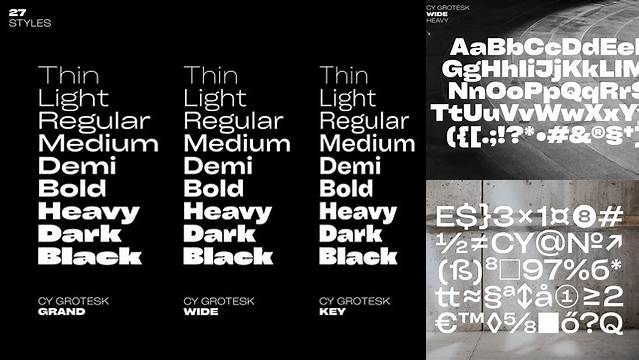
1. What is Cy Grotesk Font?
Okay, guys, let's dive into the world of Cy Grotesk font. What exactly is it? Well, Cy Grotesk is a modern sans-serif typeface known for its clean lines, geometric shapes, and overall readability. It's a versatile font family, making it suitable for a wide range of design projects. Think about everything from website headers and body text to print materials like brochures and posters. The beauty of Cy Grotesk font lies in its simplicity and elegance, offering a contemporary look that doesn't feel overly trendy or dated. It’s the kind of font that communicates professionalism and clarity, which is why it's so popular among designers. The distinct character shapes, particularly in the lowercase letters, contribute to its unique identity. You'll notice a slight squareness to some of the forms, giving it a sturdy and dependable feel. This makes Cy Grotesk font not just aesthetically pleasing but also highly functional for various applications. It excels in both digital and print formats, ensuring that your message is conveyed effectively regardless of the medium. When you're looking for a font that's both modern and timeless, Cy Grotesk is definitely a strong contender to consider. This font is a workhorse, capable of handling everything from long-form text to eye-catching headlines, and its adaptability makes it a valuable asset in any designer's toolkit.
2. Key Features of Cy Grotesk
So, what makes Cy Grotesk font stand out from the crowd? Let's break down some of its key features. First off, its geometric construction is a major characteristic. The letterforms are based on simple shapes like circles, squares, and straight lines, giving it a structured and modern appearance. This geometric foundation ensures that the font is highly legible and visually balanced. Another standout feature is its cleanliness. Cy Grotesk avoids unnecessary embellishments and flourishes, focusing on delivering a crisp and clear typographic experience. This minimalist approach makes it incredibly versatile, fitting seamlessly into various design styles and contexts. The font's readability is also a huge plus. The letter spacing and proportions have been carefully considered to ensure that text remains easy to read, even at smaller sizes. This makes it an excellent choice for body text as well as headlines. Moreover, Cy Grotesk font often comes in a variety of weights and styles, ranging from light to bold, and sometimes includes italics. This allows designers to create a visual hierarchy and add emphasis within their designs. The different weights provide the flexibility needed to tackle various design challenges, from creating subtle variations in text to making bold statements. In essence, Cy Grotesk's key features – its geometric construction, cleanliness, readability, and variety of weights – contribute to its versatility and popularity. It's a font that's both functional and aesthetically pleasing, making it a reliable choice for any design project. When you need a font that communicates clarity and modernity, Cy Grotesk is a fantastic option.
7. Using Cy Grotesk for Website Design
Let’s talk about using Cy Grotesk font for website design. This is where things get really exciting because typography can make or break a website’s visual appeal and user experience. Cy Grotesk, with its clean and modern aesthetic, is a fantastic choice for web design, but you need to use it strategically to get the best results. First off, consider legibility. Websites need to be easy to read, so choose font sizes and weights that ensure clarity. Cy Grotesk font generally works well for both headings and body text, but it’s crucial to find the right balance. For headings, you might want to use a bolder weight to create visual hierarchy and draw attention to important sections. For body text, a regular or light weight will likely be more comfortable for extended reading. Consistency is another key factor in web design. Stick to a limited number of fonts (usually two or three) to create a cohesive and professional look. You might use Cy Grotesk for headings and another complementary font for body text, or use different weights and styles of Cy Grotesk to create visual interest. Performance matters, too. Using too many font weights or styles can slow down your website's loading speed, which can frustrate users. Optimize your font files and consider using web font formats like WOFF and WOFF2 to ensure fast loading times. Responsive design is crucial in today's mobile-first world. Make sure your font choices look good on all devices, from desktops to smartphones. Test your website on different screen sizes to ensure that the text remains legible and the design looks balanced. Accessibility is also a critical consideration. Choose font colors and sizes that provide sufficient contrast with the background, making your website accessible to users with visual impairments. When using Cy Grotesk font on your website, think about the overall tone and message you want to convey. Its clean and modern style can communicate professionalism, clarity, and innovation, making it a great choice for a wide range of websites, from corporate sites to personal portfolios. So, go ahead and experiment, but always keep legibility, consistency, performance, responsiveness, and accessibility in mind.
8. Cy Grotesk in Branding and Logo Design
Alright, let's dive into how you can use Cy Grotesk font in branding and logo design. This is where typography really shines, as it plays a crucial role in conveying a brand's personality and values. Cy Grotesk, with its clean, modern, and versatile nature, can be a fantastic choice for creating a strong and memorable brand identity. When it comes to logos, simplicity is often key. A clean and legible font like Cy Grotesk can ensure that your logo is easily recognizable and memorable, even at small sizes. Consider using a bolder weight of Cy Grotesk for your logo to make it stand out, or pair it with a contrasting font for a more dynamic look. Consistency is essential across all branding materials. If you choose Cy Grotesk for your logo, you’ll likely want to use it in other aspects of your branding, such as your website, business cards, and marketing materials. This creates a cohesive and professional brand identity. Think about the tone and message you want to convey. Cy Grotesk's modern and clean aesthetic can communicate a sense of innovation, professionalism, and clarity. It’s a great choice for brands that want to project a contemporary and trustworthy image. Consider the target audience when choosing a font for your branding. Cy Grotesk's versatility makes it suitable for a wide range of audiences, but you’ll still want to ensure that it aligns with the specific preferences and expectations of your target demographic. Color also plays a crucial role in branding. Experiment with different color combinations to see how they interact with Cy Grotesk and enhance your brand's message. For example, pairing Cy Grotesk with a bold color can create a striking and modern look, while using it with more muted tones can convey a sense of sophistication and elegance. Don’t be afraid to experiment with different weights and styles of Cy Grotesk font to create visual interest and hierarchy in your branding materials. Using different weights for headings and body text can help guide the viewer’s eye and emphasize key information. In summary, Cy Grotesk’s clean and modern aesthetic makes it a powerful tool for branding and logo design. By focusing on simplicity, consistency, tone, target audience, and color, you can create a brand identity that’s both memorable and effective.
9. Pairing Cy Grotesk with Other Fonts
Let's get into the art of font pairing, guys! Using Cy Grotesk font is awesome, but sometimes you need a sidekick font to really make your designs pop. Pairing fonts is all about finding the right balance – you want fonts that complement each other without clashing. Think of it like a well-mixed drink: the flavors should harmonize, not fight. One classic approach is to pair a sans-serif font like Cy Grotesk with a serif font. This creates a nice contrast and can make your designs more visually interesting. For example, you could pair Cy Grotesk with a serif font like Merriweather or Playfair Display. These serif fonts have a more traditional and elegant feel, which can create a sophisticated contrast with Cy Grotesk's modern aesthetic. Another approach is to pair Cy Grotesk with a different sans-serif font that has a slightly different personality. For instance, you could pair Cy Grotesk with Open Sans. While both are sans-serif fonts, Open Sans has a slightly warmer and more approachable feel, which can soften Cy Grotesk's clean lines. Roboto is another great sans-serif option to pair with Cy Grotesk. Roboto has a dual nature, with both mechanical forms and friendly curves, making it super versatile. It can work well for both headings and body text alongside Cy Grotesk. When pairing fonts, consider the hierarchy of your design. You might use Cy Grotesk for headings and a different font for body text, or vice versa. This helps guide the viewer's eye and create a clear visual structure. Weight and style also play a crucial role. Using different weights and styles of the same font family can create visual interest without introducing too many different fonts. For example, you could use a bold weight of Cy Grotesk for headings and a regular weight for body text. Experimenting is key! Try out different combinations and see what works best for your specific project. There’s no one-size-fits-all answer when it comes to font pairing, so trust your instincts and have fun with it. Pairing Cy Grotesk font with the right font can elevate your designs and create a more polished and professional look.
10. Using Cy Grotesk in Print Design
Alright, let’s talk about using Cy Grotesk font in print design. While a lot of design work these days is digital, print is still super important, and choosing the right font can make a huge difference in how your printed materials look and feel. Cy Grotesk, with its clean and legible design, is a solid choice for a variety of print projects. When designing for print, legibility is paramount. Unlike websites, where users can adjust font sizes, you have a fixed size in print. This means you need to choose a font and size that’s easy to read, even at smaller sizes. Cy Grotesk generally holds up well in print, but it’s still crucial to test your designs at the final print size to ensure readability. Line spacing (also known as leading) and letter spacing (tracking) are also critical in print design. Adjusting these can significantly impact the readability of your text. If your text looks cramped, increasing the line spacing can make it more comfortable to read. If the letters seem too far apart, decreasing the letter spacing can create a more cohesive look. Paper stock can also influence how a font looks in print. Some fonts might look great on glossy paper but less so on matte paper, and vice versa. Consider the paper you’ll be using when choosing your font. Color is another essential factor in print design. Ensure that your font color has enough contrast with the background to be easily readable. Light fonts on light backgrounds or dark fonts on dark backgrounds can be difficult to read, so aim for a good level of contrast. Think about the overall tone and message of your printed materials. Cy Grotesk’s modern and clean aesthetic can communicate professionalism, clarity, and sophistication. It’s a great choice for a variety of print projects, from brochures and flyers to business cards and posters. Consider using different weights and styles of Cy Grotesk font to create visual hierarchy in your print designs. Using a bolder weight for headings and a regular weight for body text can help guide the reader’s eye and emphasize important information. Finally, always get a proof of your print design before going to press. This allows you to see how the font looks in the final printed product and make any necessary adjustments. Using Cy Grotesk font effectively in print design involves careful consideration of legibility, spacing, paper stock, color, and overall tone. By paying attention to these details, you can create printed materials that look polished and professional.